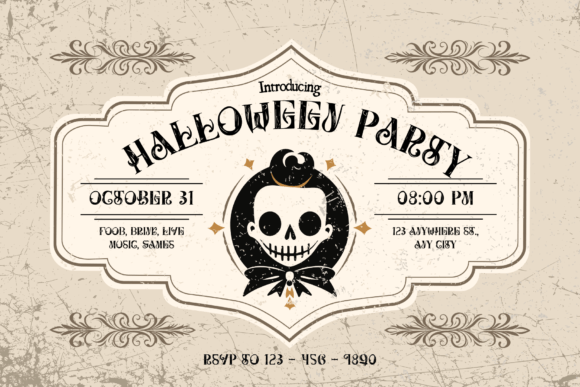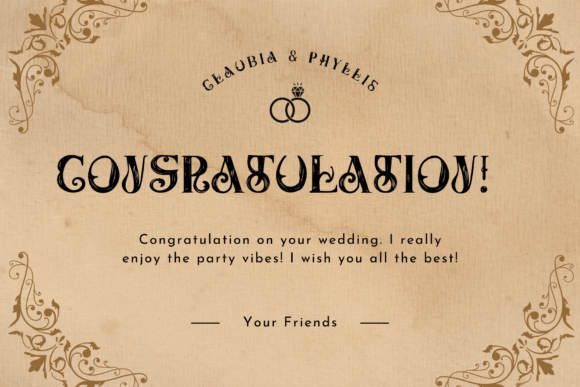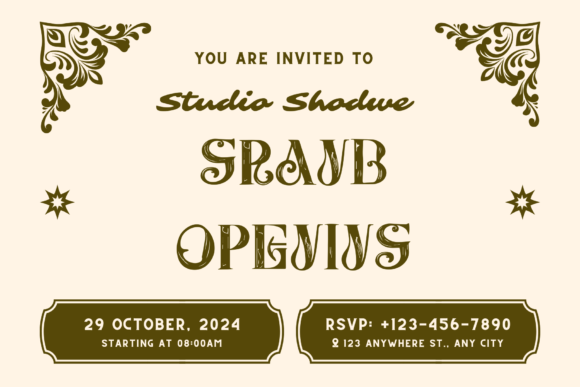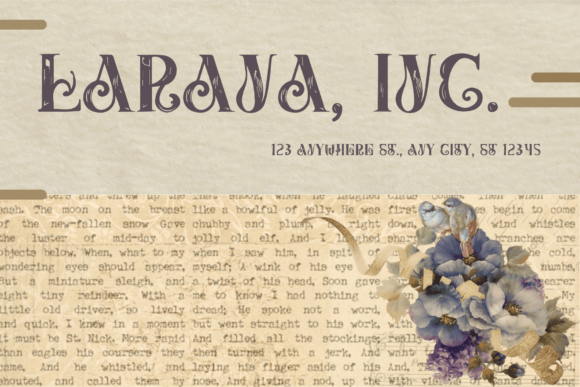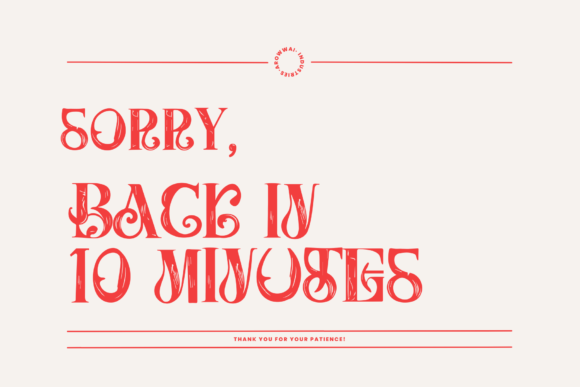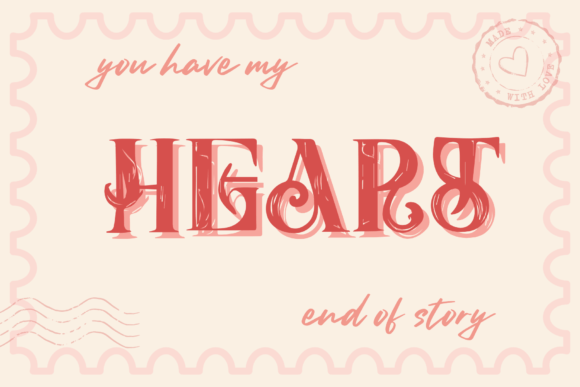
Introduction to Royal Elegance Font
Have you ever found yourself in the midst of a creative project, desperately searching for the perfect font to bring your vision to life? As a designer, you know the struggle is real – and the right font can make all the difference. That’s where Royal Elegance Font comes in, a stunning typeface that exudes high-quality sophistication and refinement.
With its elegant curves and refined design, Royal Elegance Font is the ultimate design resource for any creative project. Whether you’re working on a poster, film, or digital design, this font is sure to add a touch of regality and sophistication. And the best part? It’s available for a free download, making it an accessible and valuable addition to any designer’s toolkit.
From its transparent background to its versatile design, Royal Elegance Font is the perfect choice for designers who demand the highest level of quality and style in their work. So why settle for anything less when you can elevate your creative projects with the timeless grandeur of Royal Elegance Font?
Key Features of Royal Elegance Font
- High-quality font design suitable for a wide range of creative projects, including wedding invitations, luxury branding, and high-end marketing materials.
- Features a transparent background, allowing for seamless integration with any design element or background image.
- Includes a comprehensive character set, supporting Latin, Cyrillic, and Greek alphabets, making it a valuable design resource for global projects.
- Designed with precision and attention to detail, ensuring a sophisticated and elegant look that elevates any design project.
Honest Review: Royal Elegance Font
I recently came across the Royal Elegance Font, and I must say it’s a great addition to any designer’s toolkit. This high-quality font is a valuable design resource that can elevate any creative project.
Here are some aspects that work well with the Royal Elegance Font:
- ✨ Elegant and sophisticated design: The font has a classic feel that exudes luxury and refinement.
- ✨ Wide range of applications: The font is suitable for various projects, from wedding invitations to business proposals.
- ⚠️ Limited font sizes: The font might not be suitable for large-scale projects or applications where multiple font sizes are required.
- ⚠️ Transparency issues: The font’s transparent background might not work well with all design elements.
Overall, the Royal Elegance Font is a solid choice for designers looking for a high-quality, elegant font. While it has some limitations, it’s a valuable resource that can add a touch of sophistication to any creative project.
Getting the Most Out of Royal Elegance Font
To get the most out of the Royal Elegance Font, use it in conjunction with other high-quality design resources, such as graphics and images. You can also experiment with different font sizes, colors, and styles to create a unique and eye-catching design.
Common Use Cases for Royal Elegance Font
The Royal Elegance Font is a versatile design resource that can be used in a variety of creative projects, including wedding invitations, business cards, and marketing materials. It’s also a great choice for designers who want to create a sophisticated and elegant look for their designs.
Yes, the Royal Elegance Font includes a transparent background option, allowing you to easily overlay it on any design element without compromising its legibility.